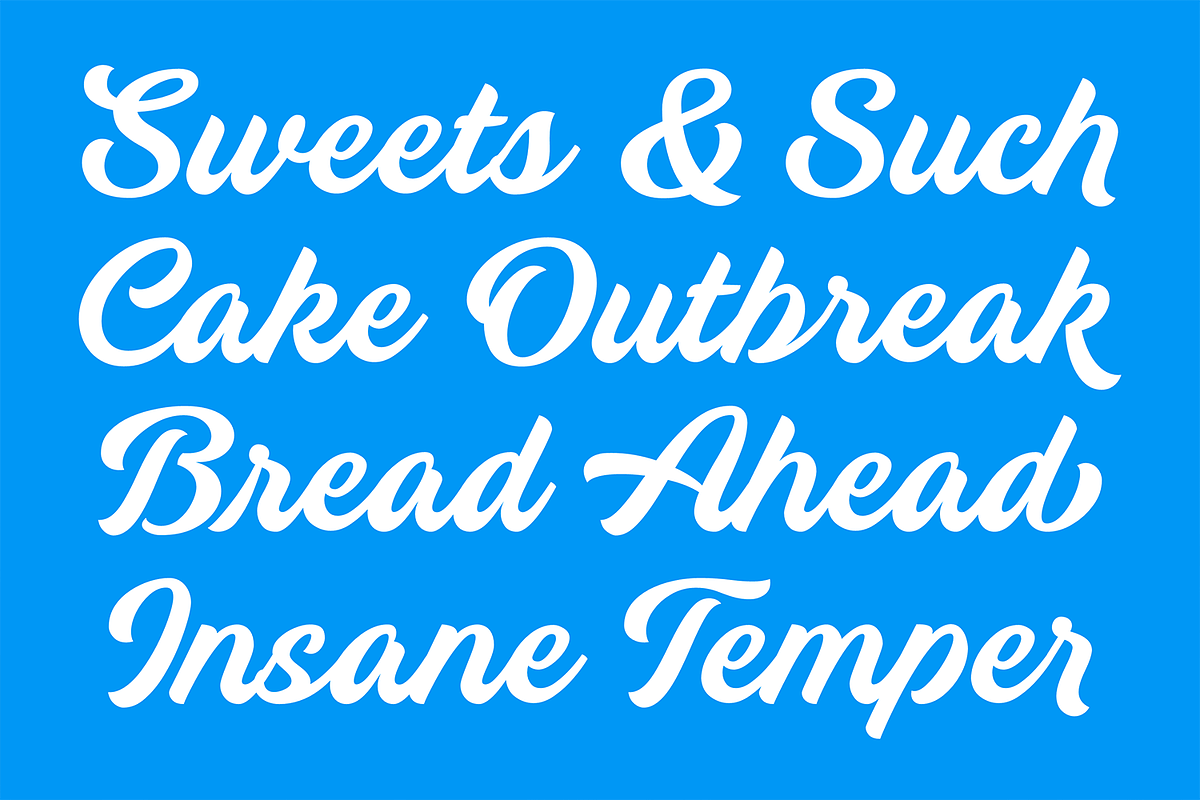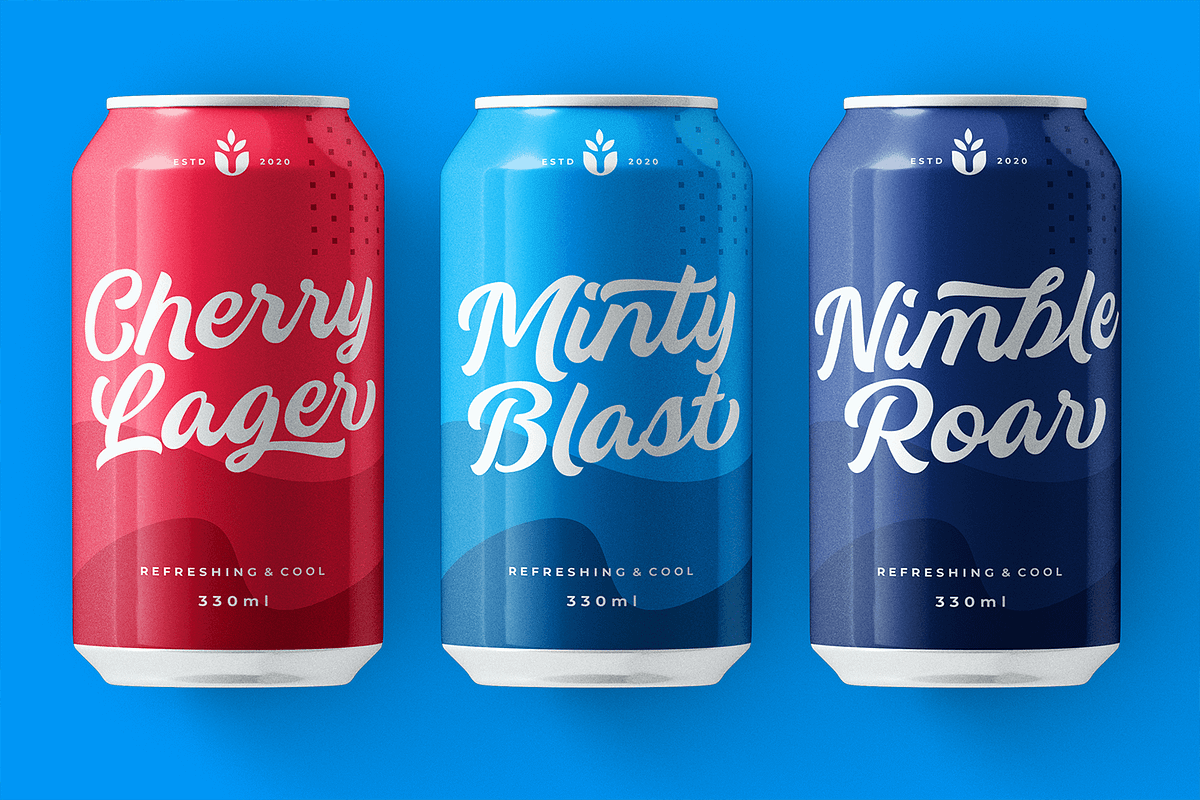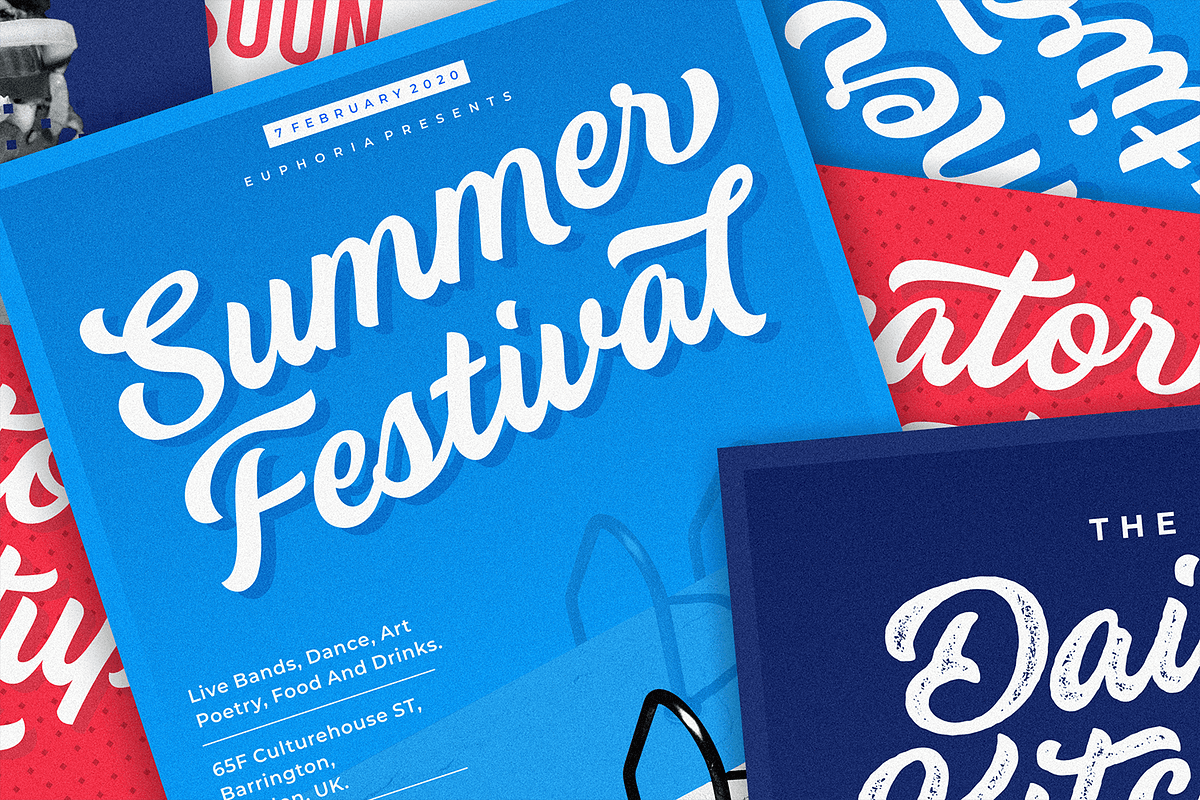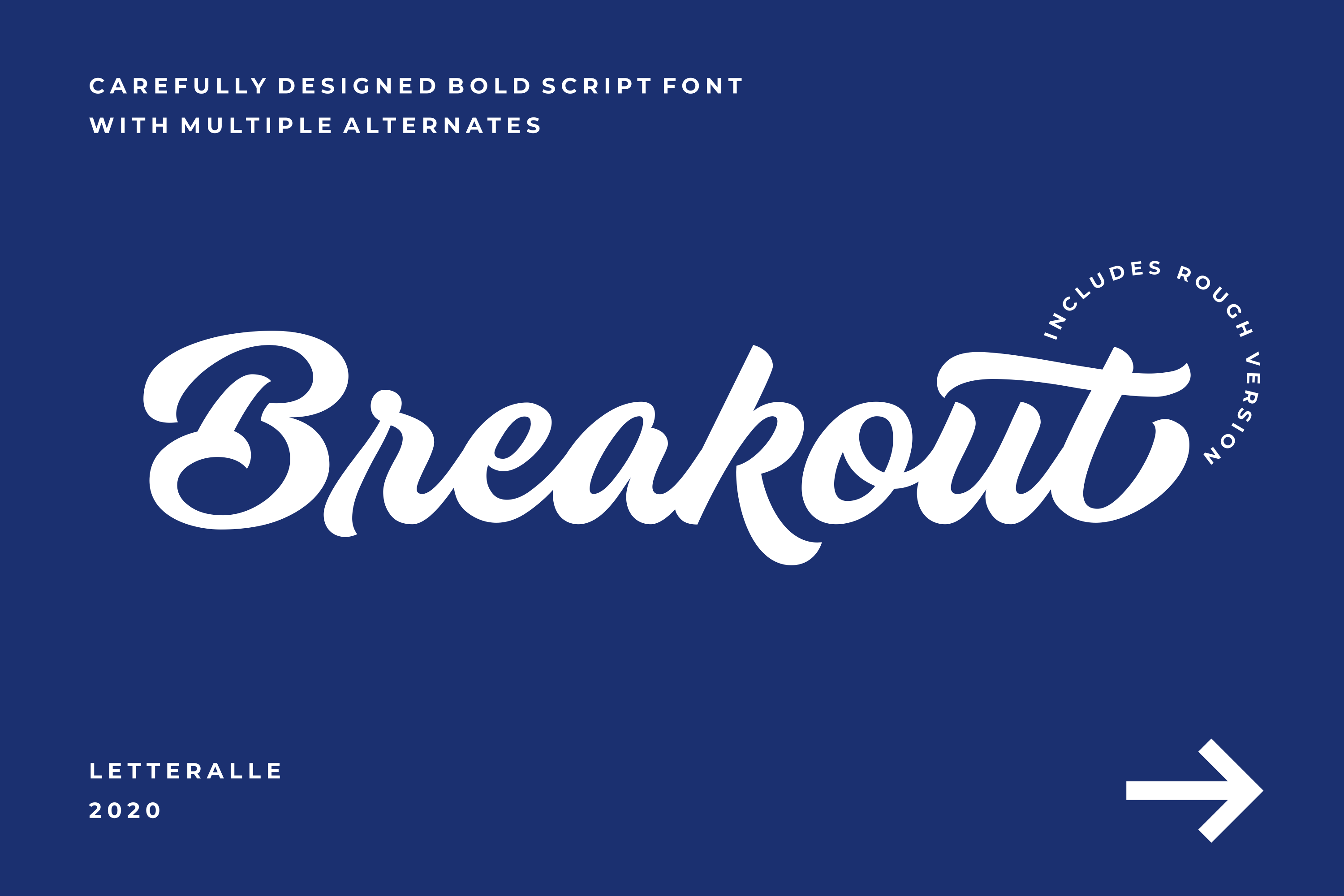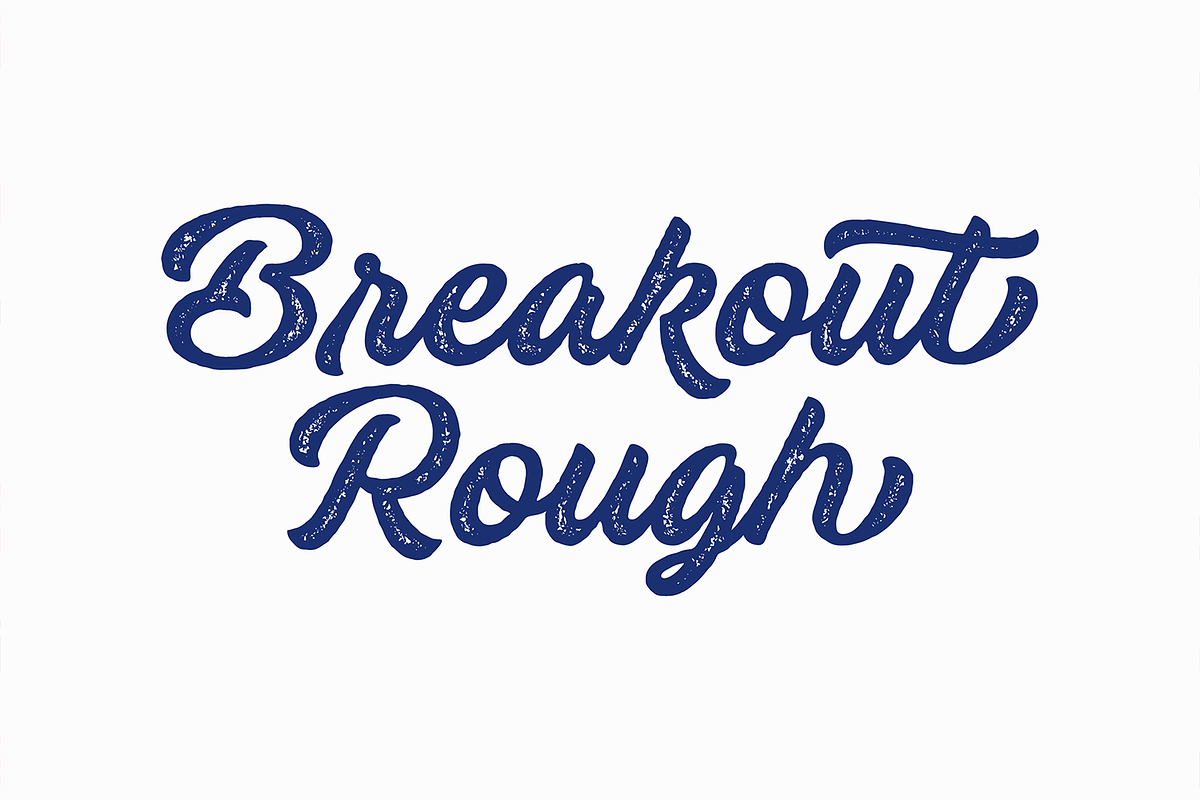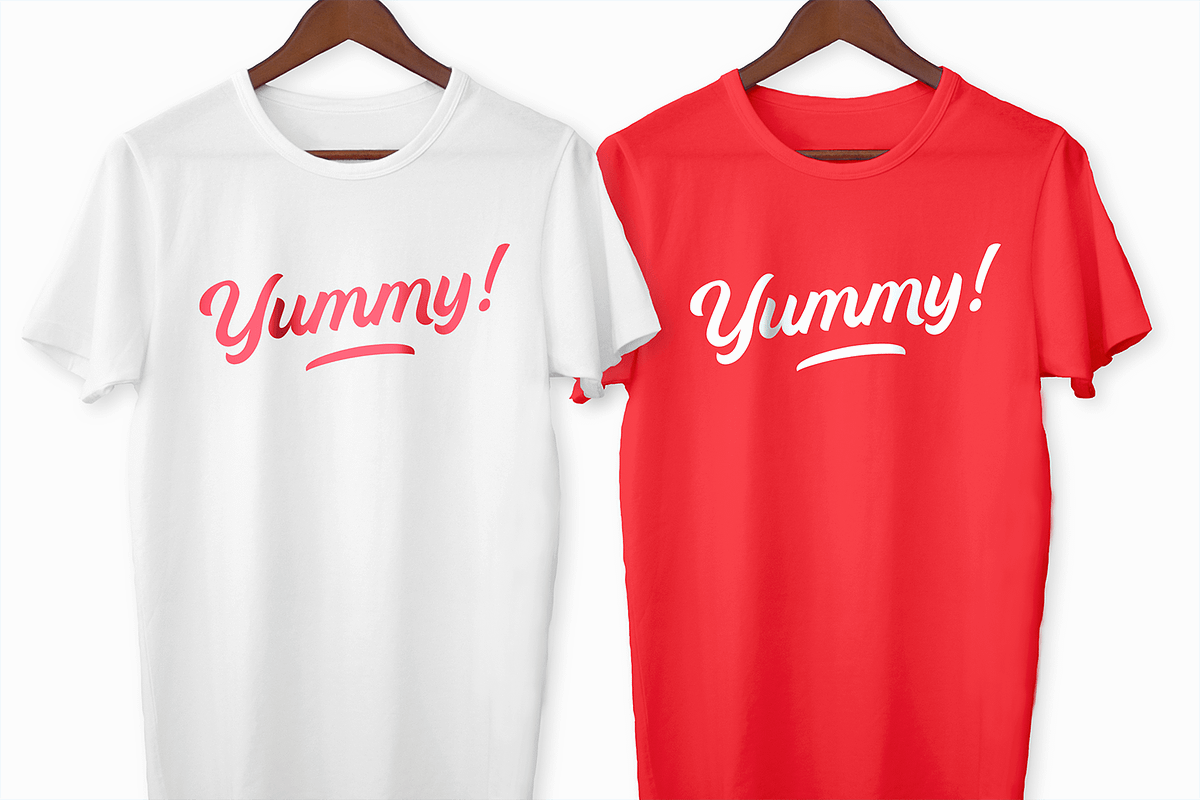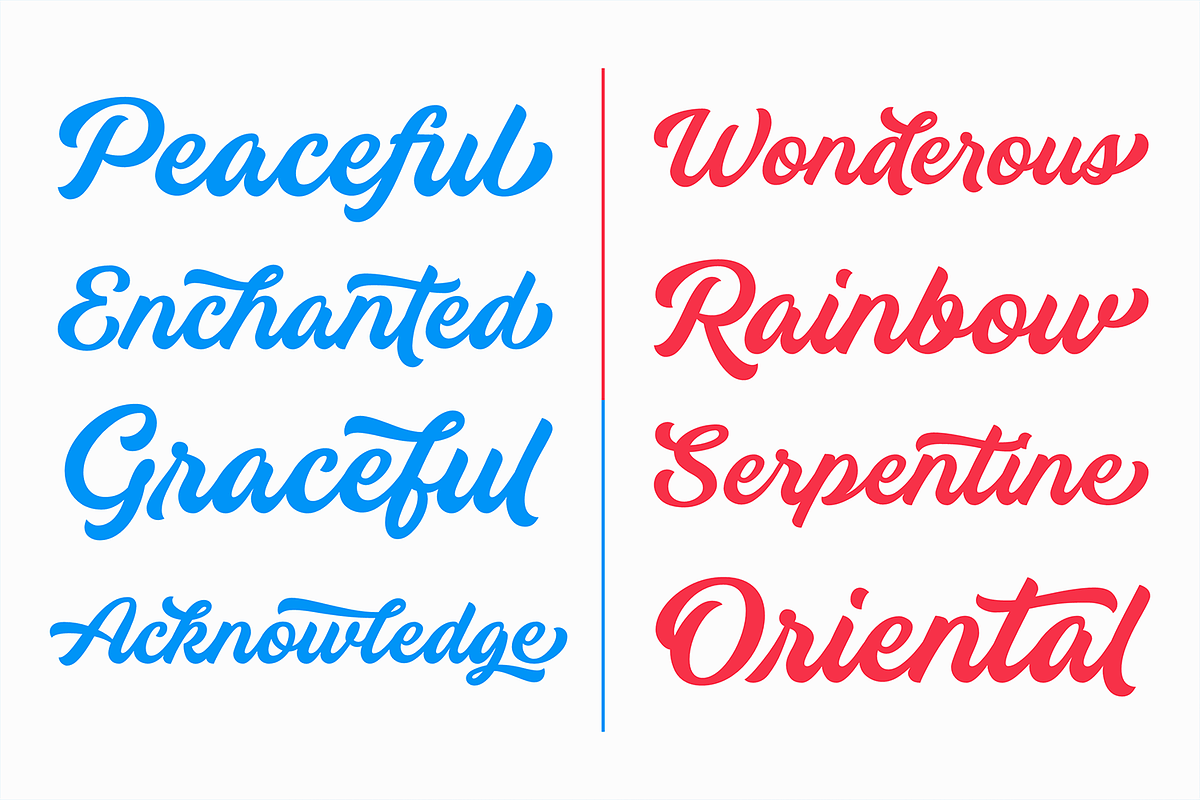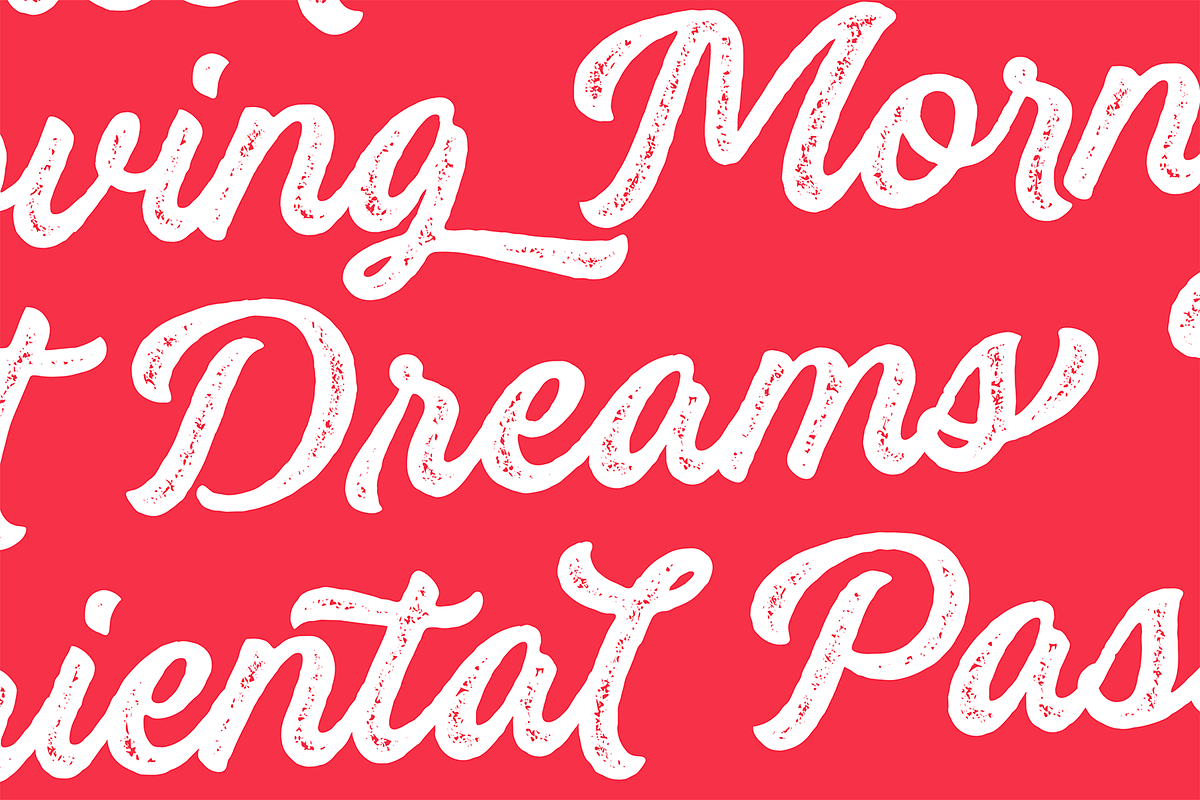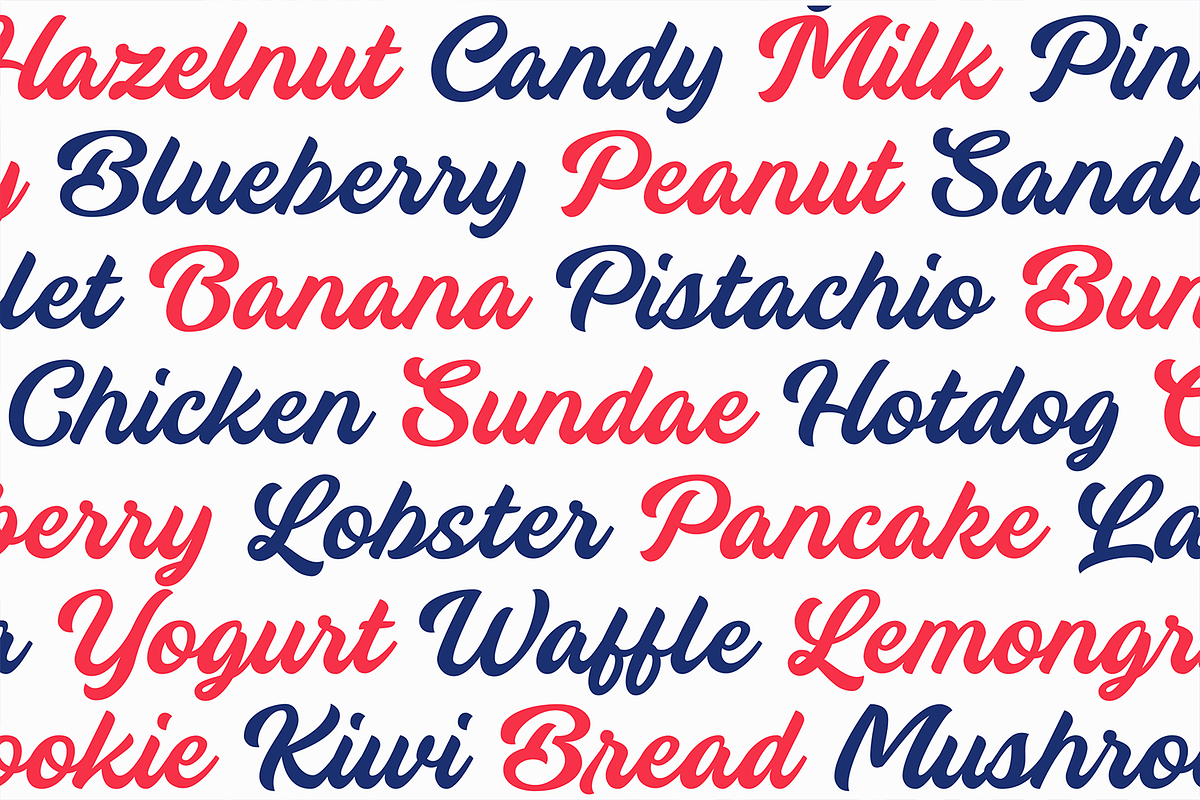
Breakout Bold Script Font
Breakout is a carefully hand-lettered bold script font. Breakout comes in two styles; Regular and Rough Version. Breakout has a lots alternative of each letter to make it look unique and attractive. It is can give a solid and standout impression. Breakout is suitable for logotype, digital printing, packaging, T-shirt, social media post, Merchandise, and many more.